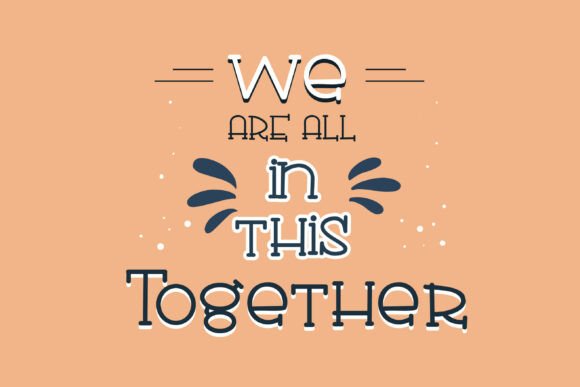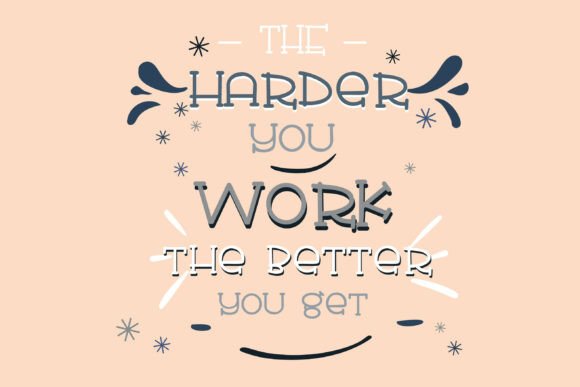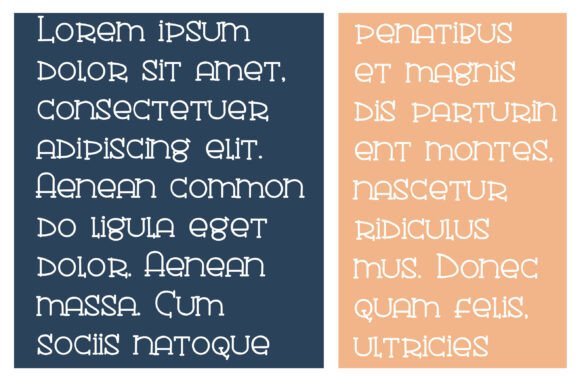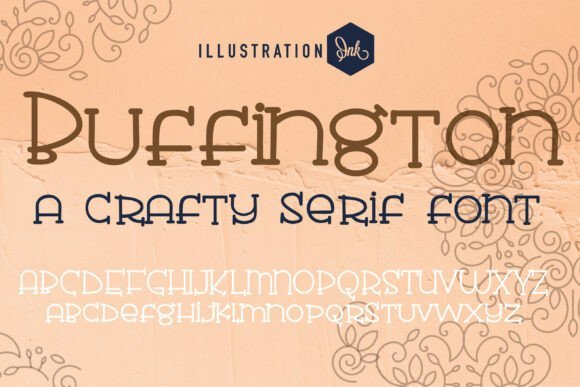
Introduction to Pn Buffington Fn Font
Buffington is a charming, crafty serif font that combines hand-made warmth with structured elegance.
Its rounded serifs, open counters, and playful detailing give it a soft, approachable look that feels both stylish and personable Each letterform shows a slight irregularity that echoes hand lettering, making it ideal for creative projects that need character without sacrificing readability.
Key Features of Pn Buffington Fn Font